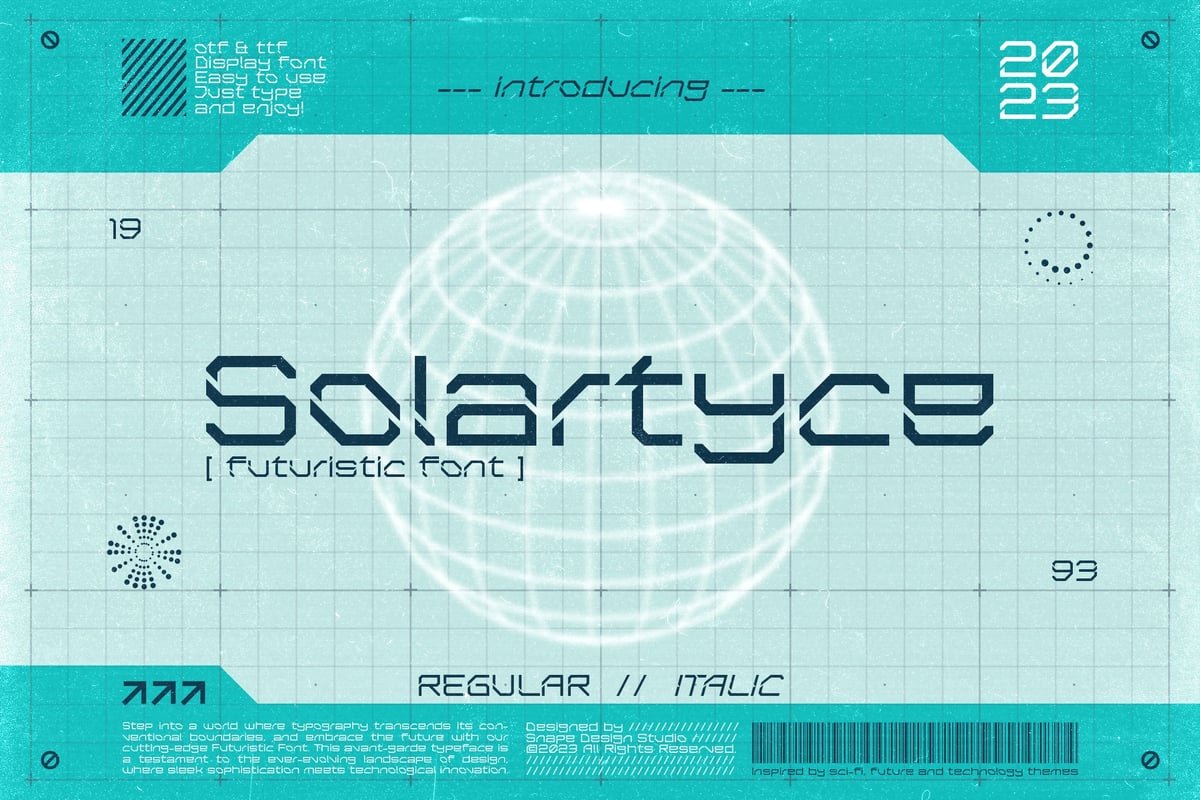
Solartyce - Futuristic Font
Transform your designs with cutting-edge typography that seamlessly blends innovation and artistry. This Solartyce futuristic font collection redefines modern design with sleek, dynamic characters that deliver striking visual impact. The typography perfectly balances technology aesthetics with creative versatility, making it ideal for sci-fi themes, tech branding, or any project demanding a contemporary edge. The font empowers designers with user-friendly customization options and comprehensive ...